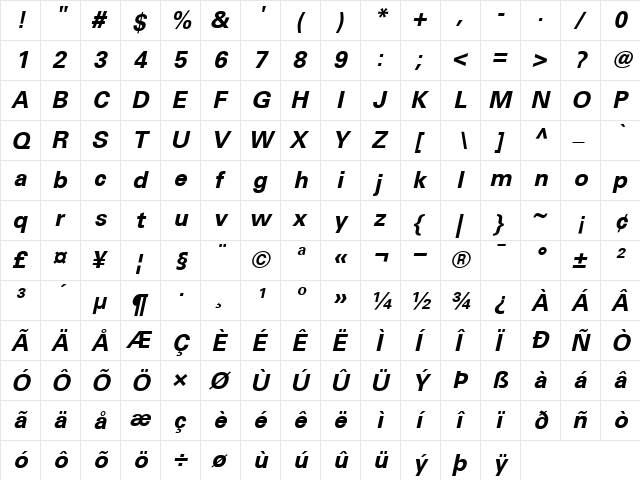
Univers65 BoldItalic
Design Context for Univers65 Typeface
Univers65 offers clean, dependable letterforms without strong stylistic allegiance, making it a practical choice for designers who need flexibility. The dynamic lean of this cut emphasises speed and emphasis in any layout. The heavy weight commands attention and anchors typographic hierarchies.
Pro Tip: Try Univers65 for annotation and caption copy alongside an upright companion — the contrast in angle creates a dynamic but ordered typographic system.